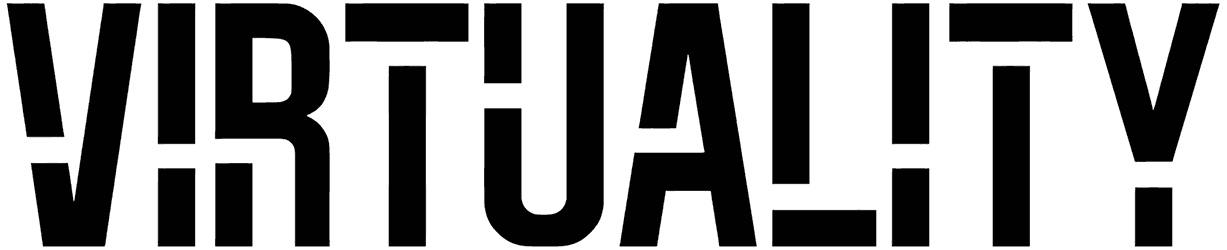
Virtuality Font
Lend your words a tall and strong face with this techno font, which is named Virtuality. With a futuristic and scientific mood, this pickup will be ideal for many projects, namely metaverse designs, brand names, fashion ads, and so on. This robot font doesn’t offer lowercase letters, but possessing two sets of capitals would make up for this lack.